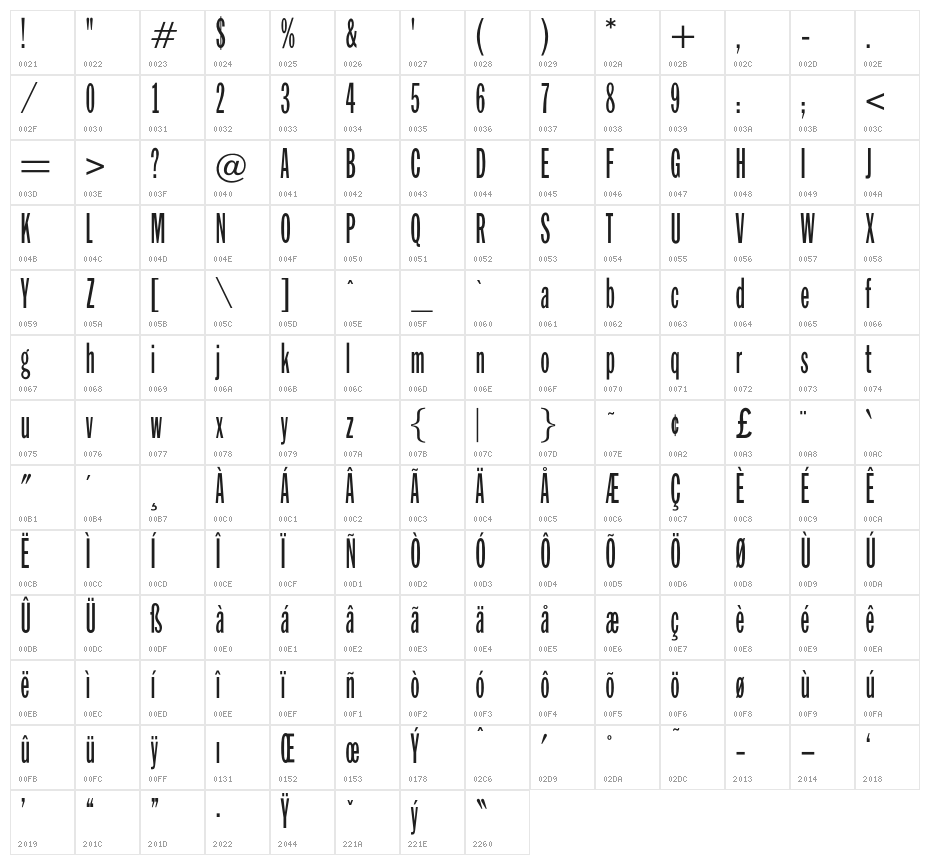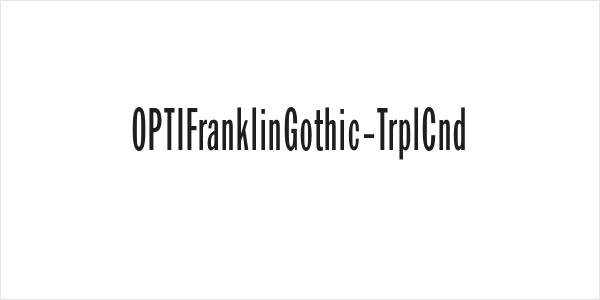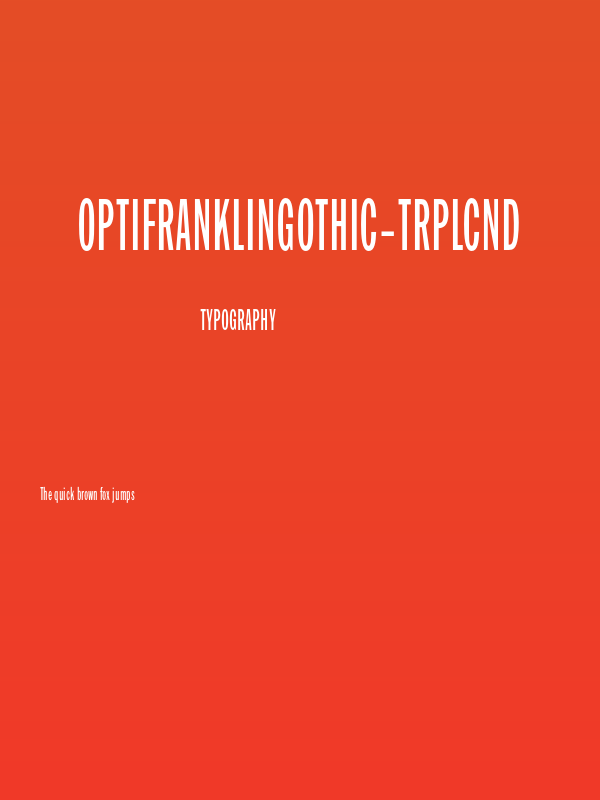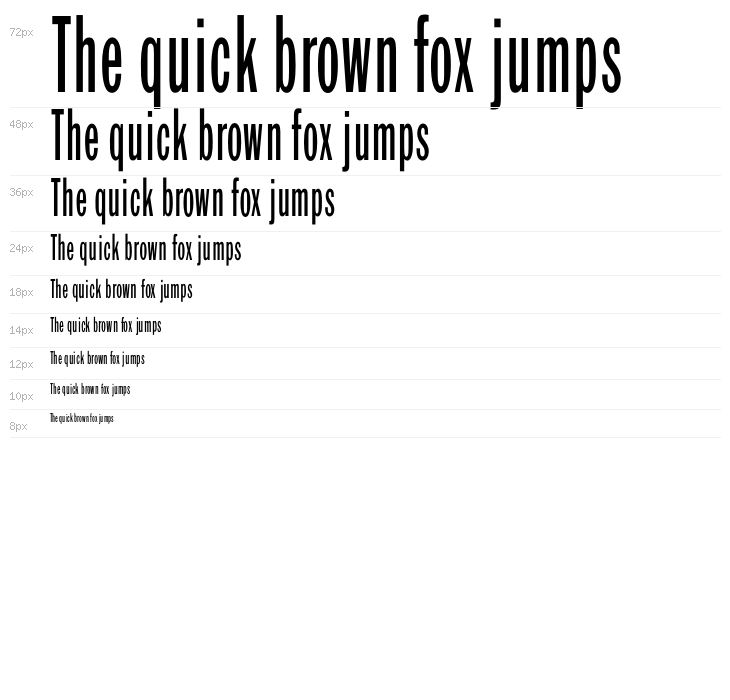
OPTIFranklinGothic-TrplCnd Font
OPTIFranklinGothic-TrplCnd Description
This typeface is characterized by its tall and narrow letterforms, creating a striking and impactful appearance. The uppercase and lowercase letters maintain a consistent height, contributing to a uniform and cohesive look. The font exhibits a modern and clean aesthetic, with straight lines and minimal curves, making it highly legible. The numbers and special characters are designed to complement the alphabet, ensuring a seamless integration across different types of content. The overall style is versatile, suitable for both digital and print media.
| Proposed Projects | Ideal for headlines, posters, and branding materials where a strong visual impact is desired. |